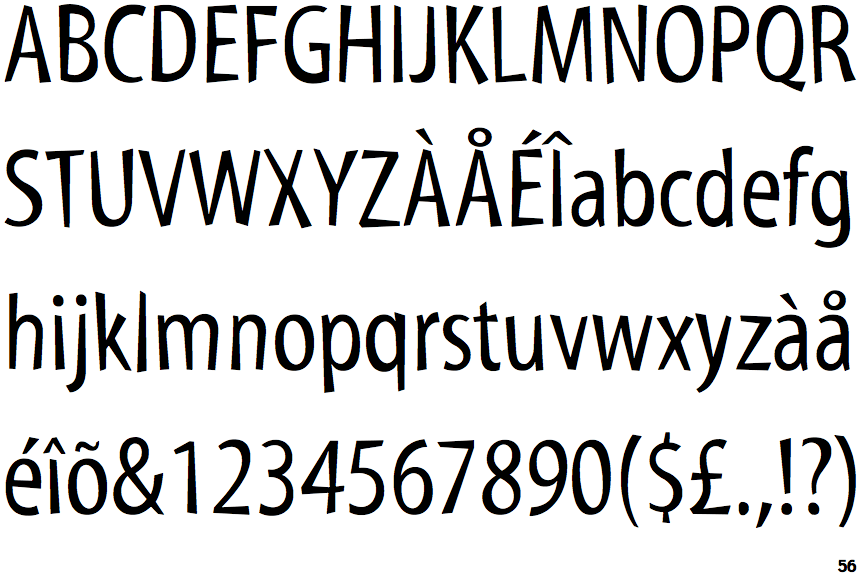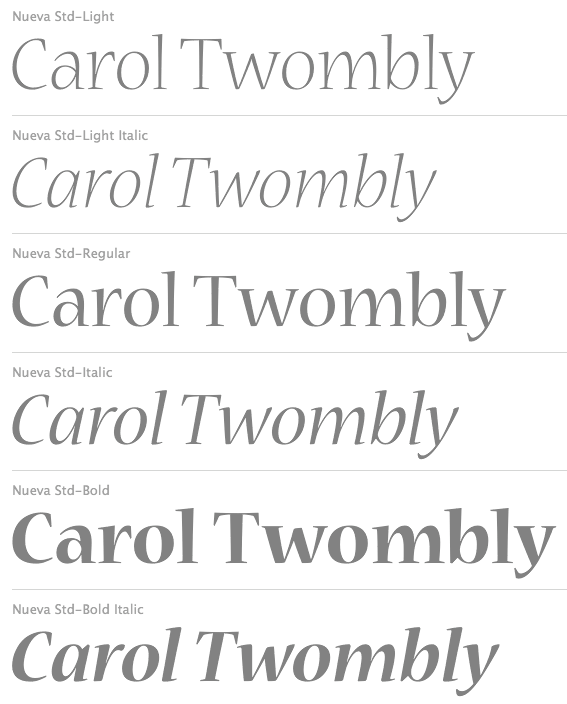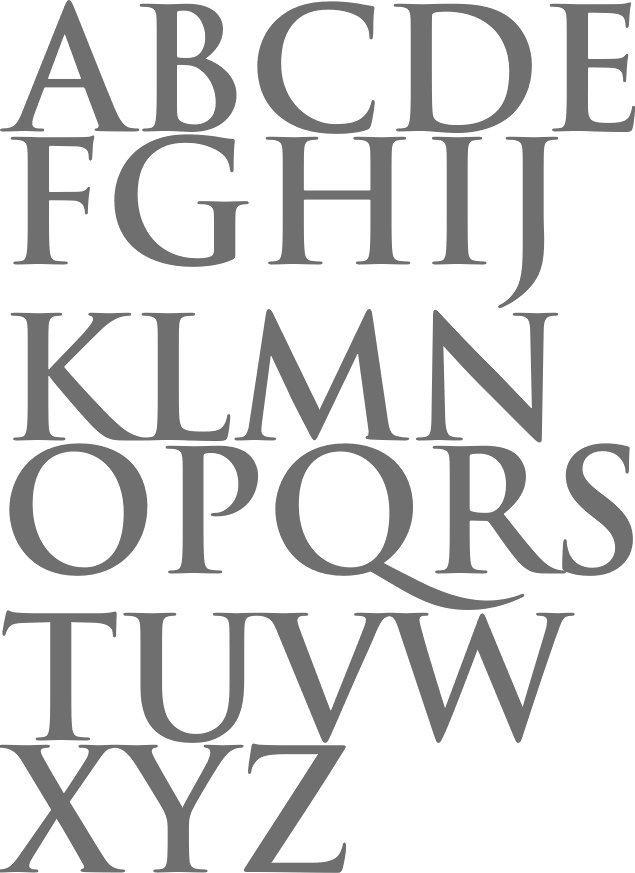
Incredible Carol Twombly Fonts Ideas
Incredible Carol Twombly Fonts Ideas. Web myriad pro font download free. The basic forms are modelled on those used in classical roman engravings.
Adobe fonts is the easiest way to bring great type into your workflow, wherever you are. Recently the roman was digitized for california by carol twombly; Nueva font family was designed by carol twombly and published by adobe.
Recently The Roman Was Digitized For California By Carol Twombly;
It Belongs To The Serif.
Adobe fonts is the easiest way to bring great type into your workflow, wherever you are. Studied at the rhode island school of design and at stanford university. Web it’s modeled on the fonts of the british printer william caslon, who released his first typefaces in 1722.
Under Twombly's Art Direction, Fonts Such As Ponderosa, Pepperwood,.
Web Representing You A Proficient And Appealing Typeface That Is Called Trajan Font, It Has Been Created By Carol Twombly In The Age Of 1989.
Studied At The Rhode Island School Of Design And At Stanford University.
Robert slimbach, carol twombly, fred brady, christopher slye free alternative fonts for chevron logo: Web the six caslon fonts within adobe caslon were redrawn in 1990 by carol twombly, who modernised it based on samples dating back to around 1725, created by. Myriad pro is the opentype.